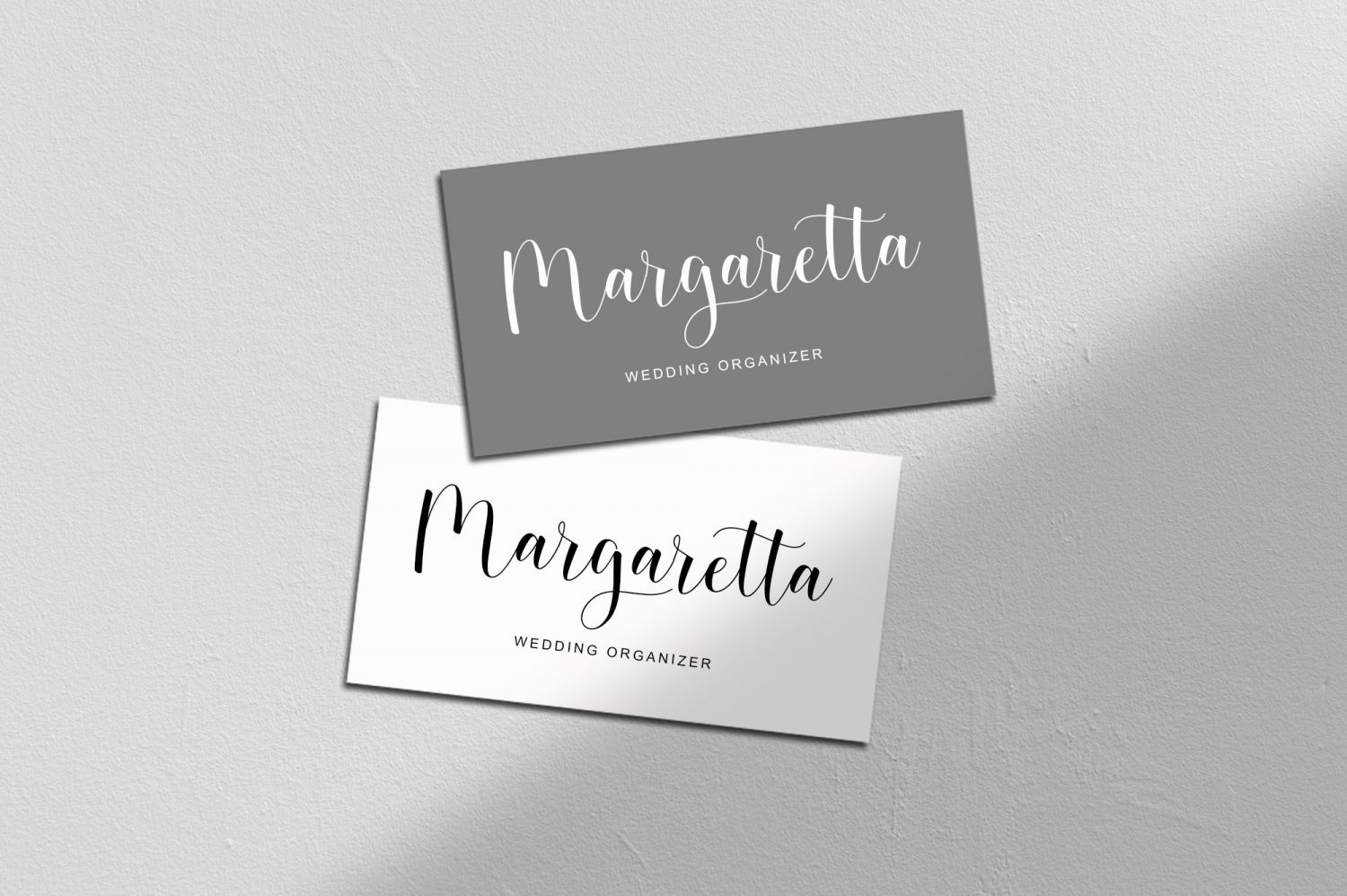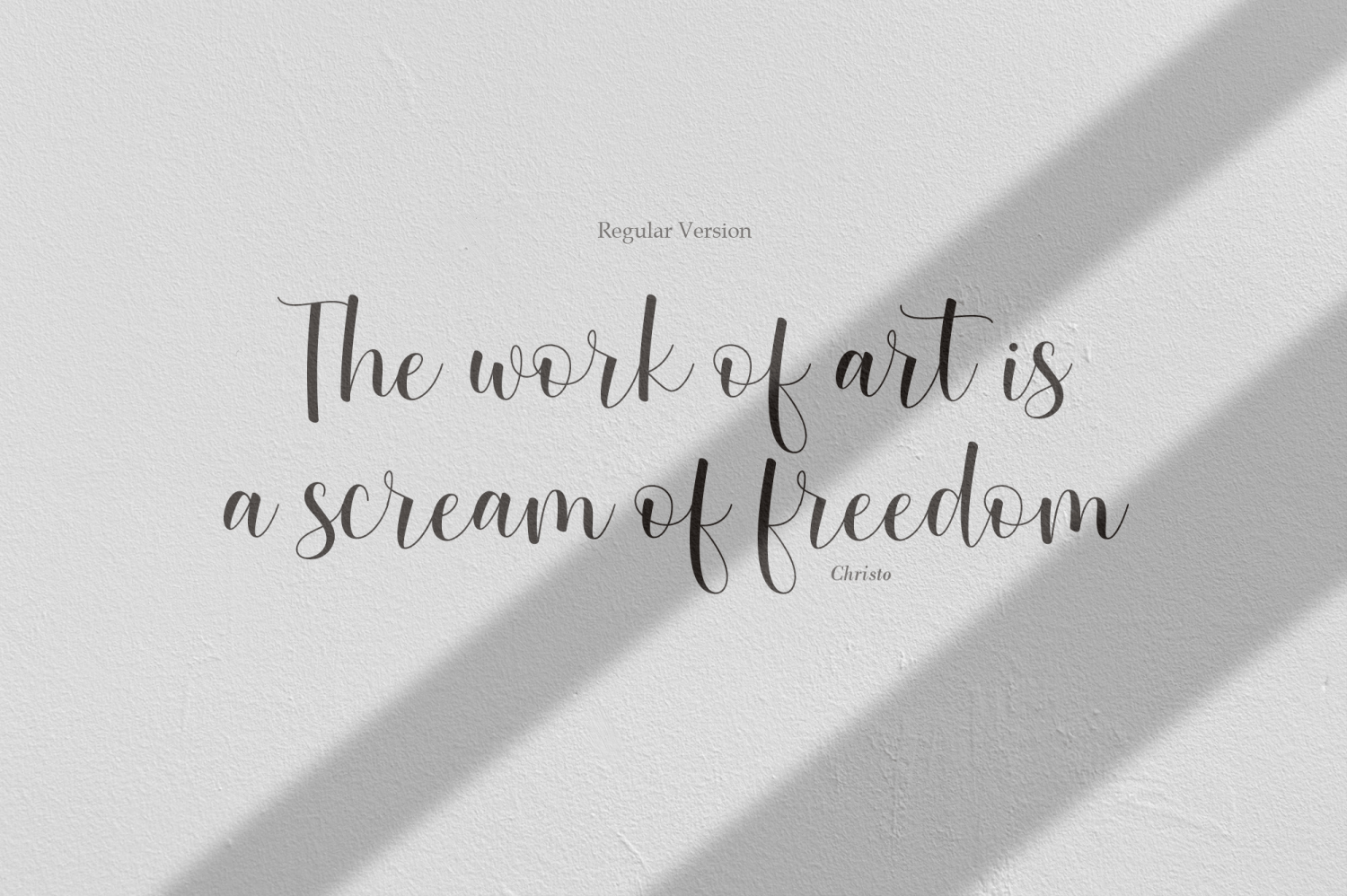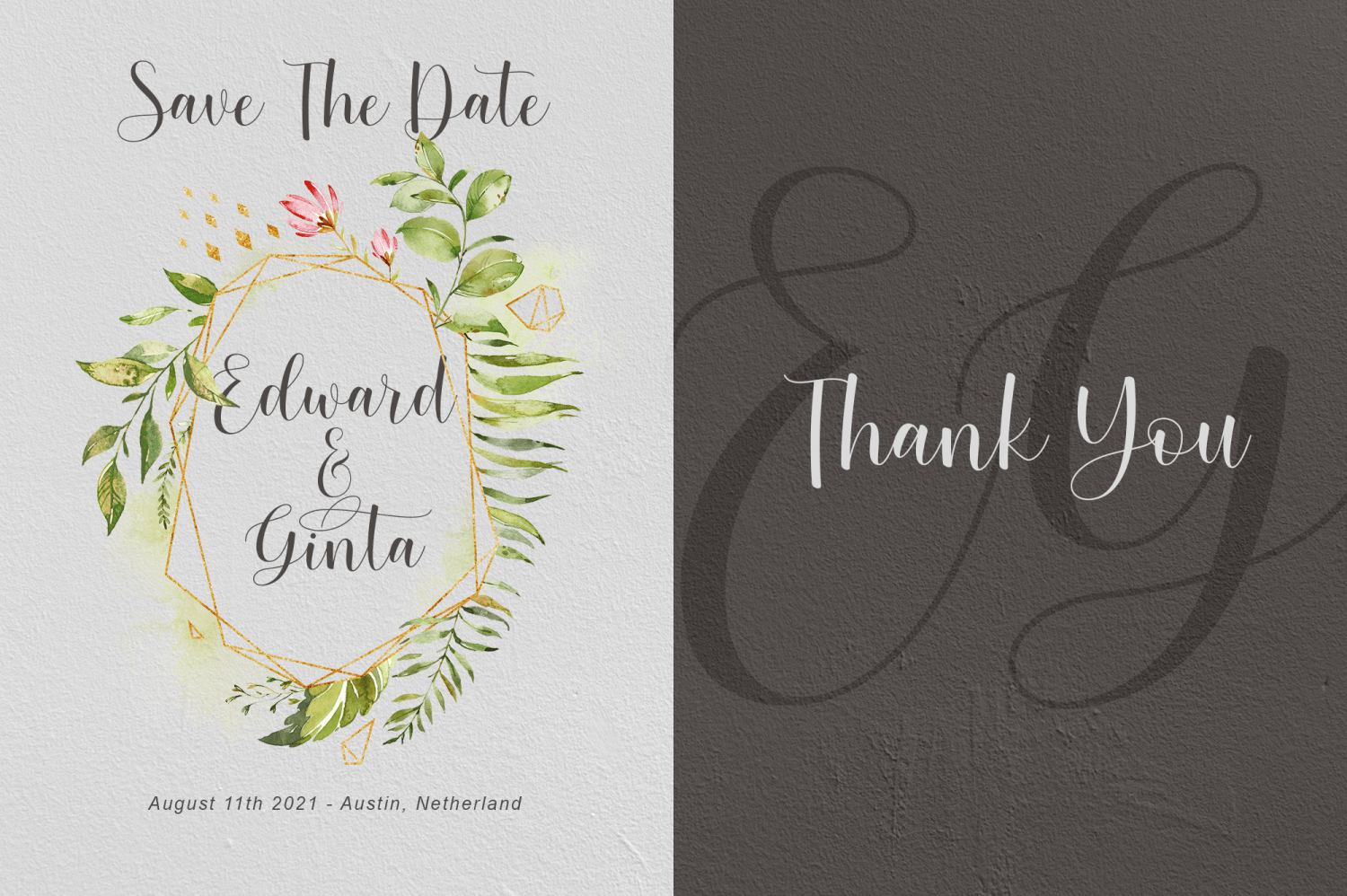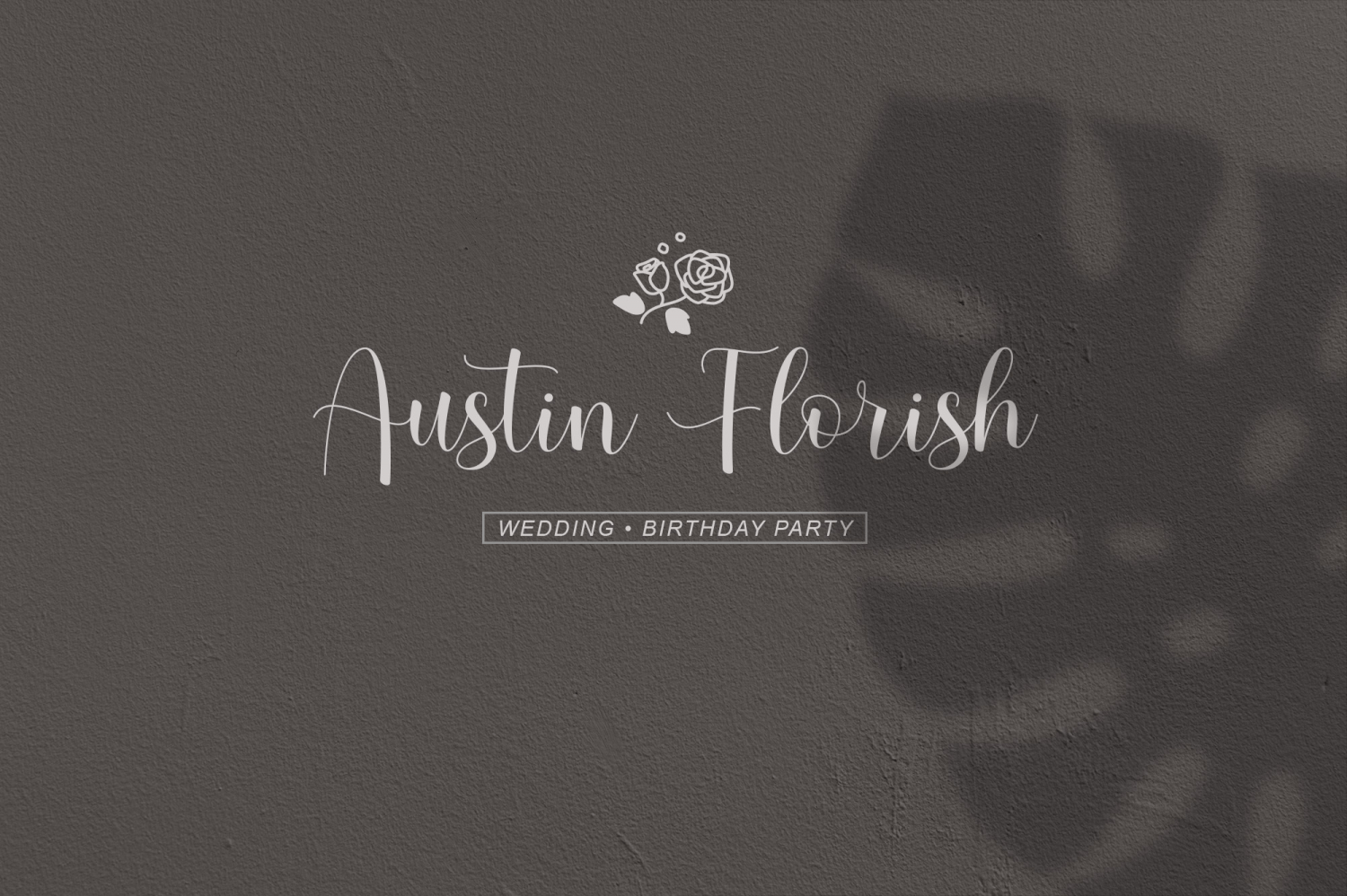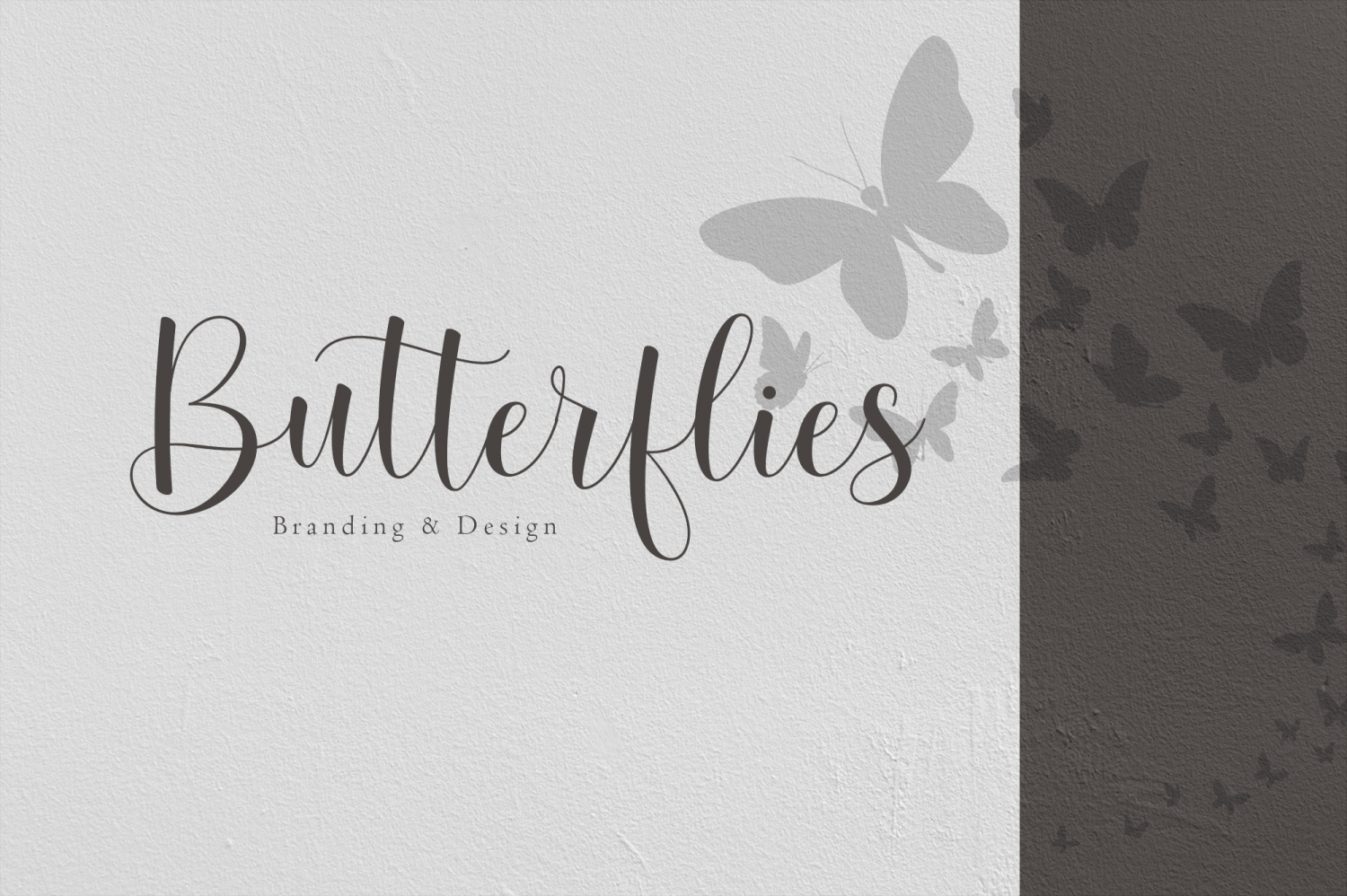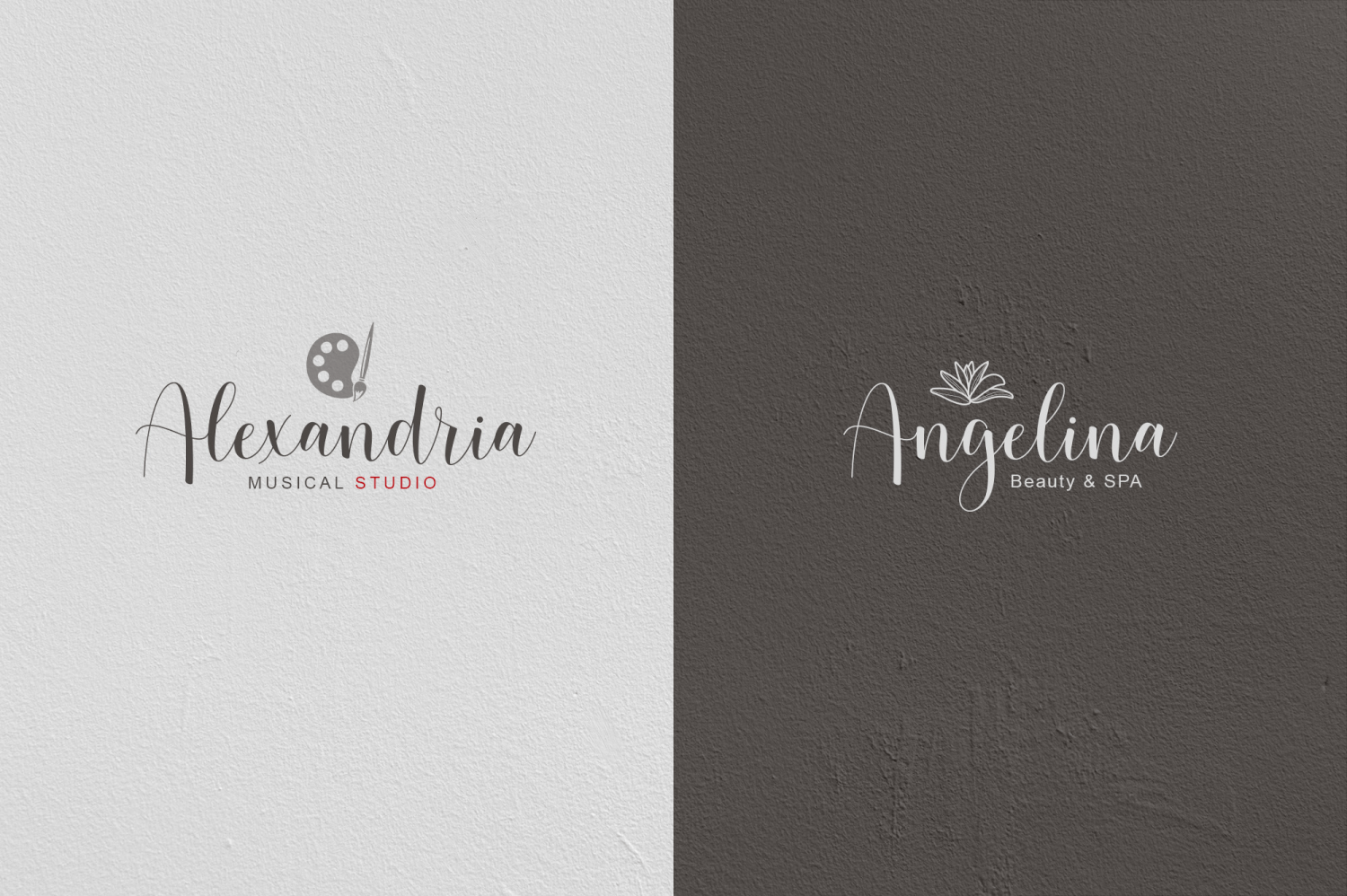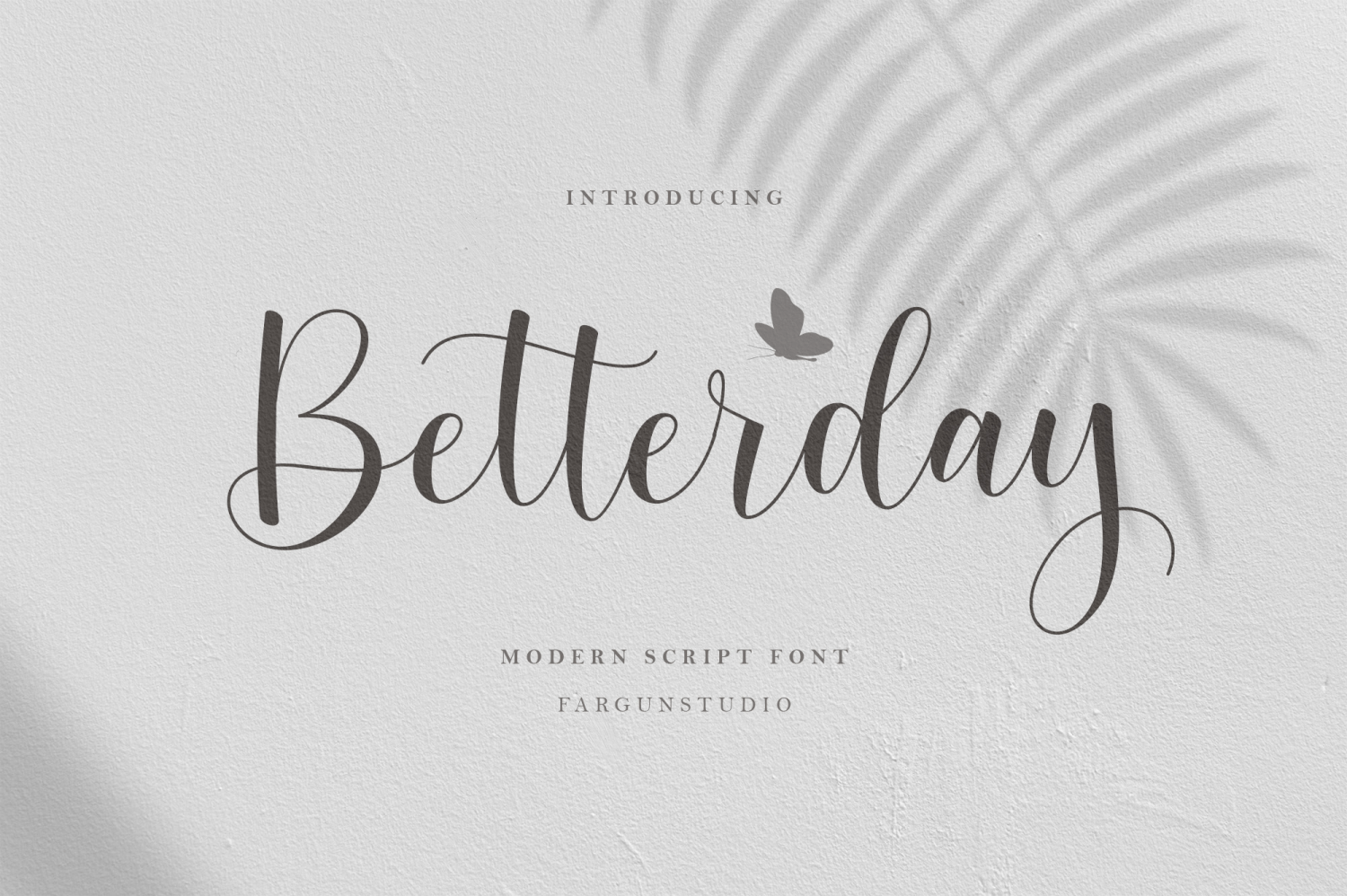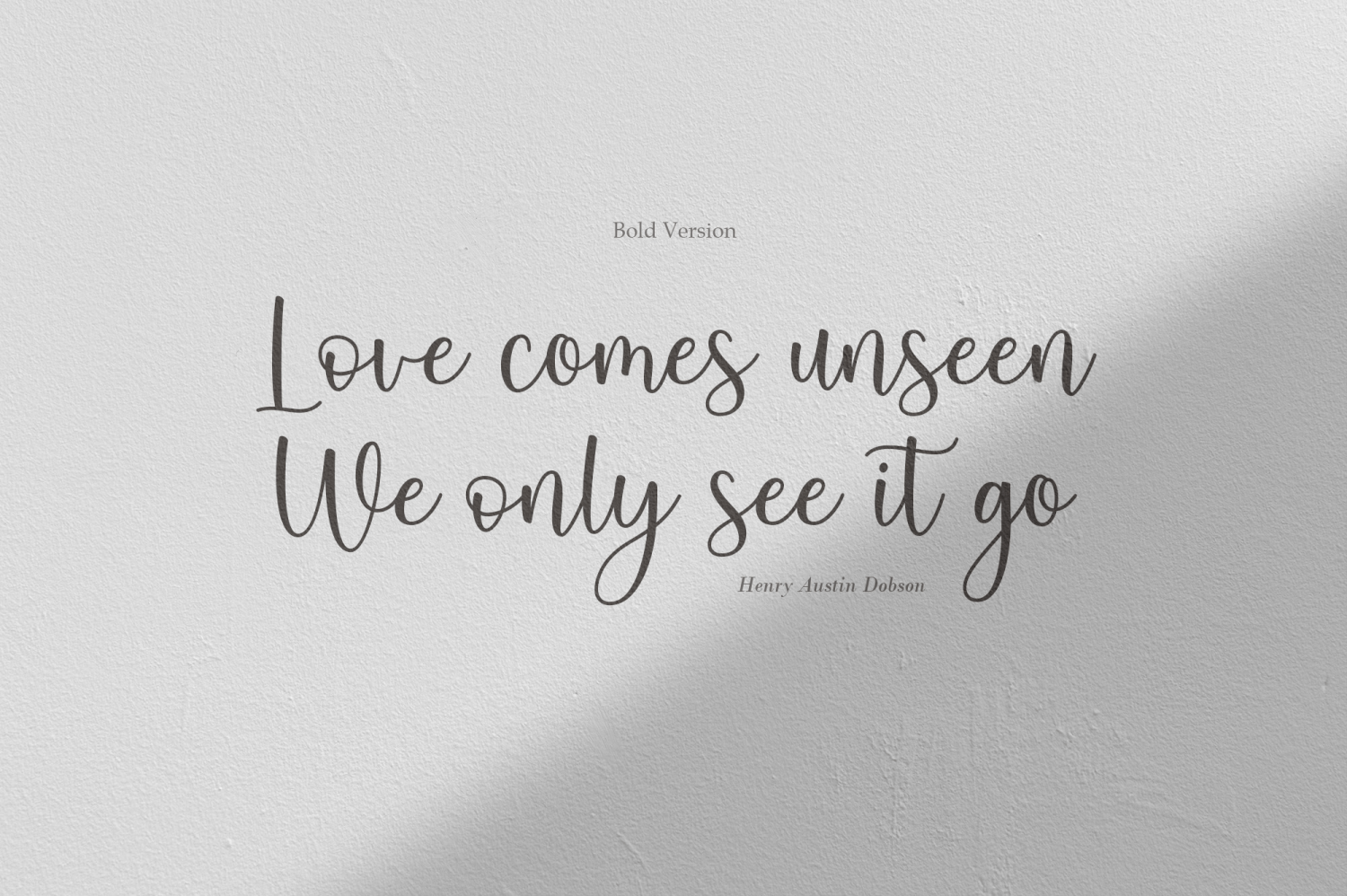
HomeFont BrosContemporaryBetterday Script ContemporaryScripts: CasualHandwritten Betterday Script FacebookXPinterestWhatsApp 1 of 8 About Betterday Script Handwritten font with a signature style. Perfect for branding projects, homeware designs, product packaging or simply as a stylish text overlay to any background image.  DOWNLOAD NOW People also explored The Wallstreet Font Rubicon Font Skull Dot Font Children Script Prisma Phesttara Font Shaktira Font Drawing Font Haldenweg Font 223 0 TagsBetterday Script Font Previous articleCopperplate WideNext articleTwo Fisted BB LEAVE A REPLY Cancel reply Comment: Please enter your comment! Name:* Please enter your name here Email:* You have entered an incorrect email address! Please enter your email address here Website: Save my name, email, and website in this browser for the next time I comment. Personal Use Free Rothwell Personal Use Free Read more about this font Anggiana Personal Use Free Read more about this font First Be Lucky Personal Use Free Read more about this font Silver Bullet Personal Use Free Read more about this font BLOG Using Fonts in Digital Marketing: Tips to Strengthen Your Brand Identity In the realm of digital marketing, every visual element plays a crucial role in shaping a brand's identity, and fonts are no exception. The... Free Fonts Risk: Why Free Fonts Can Be Dangerous for Designers To increase your work productivity, choose the most readable fonts. Modern Sans-Serif Fonts That Brands Love in 2025